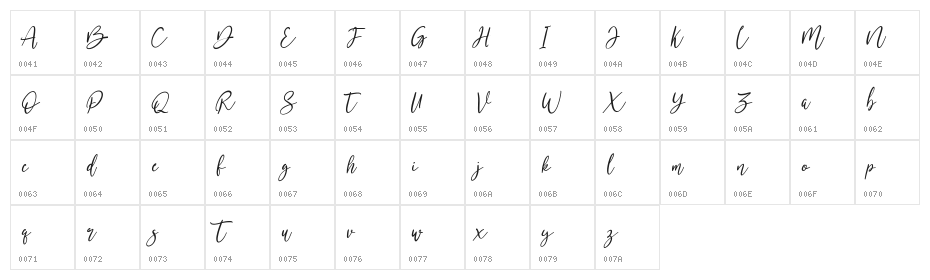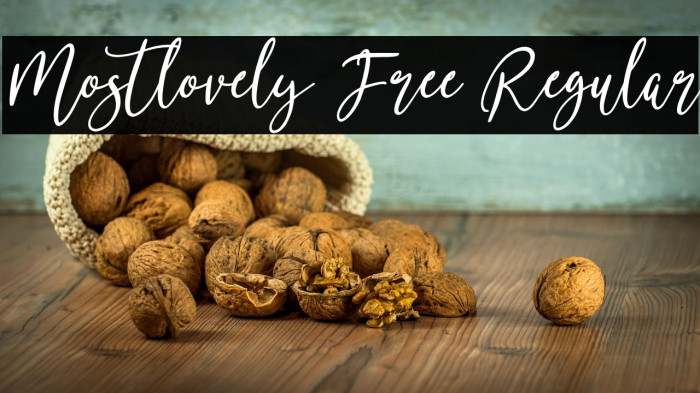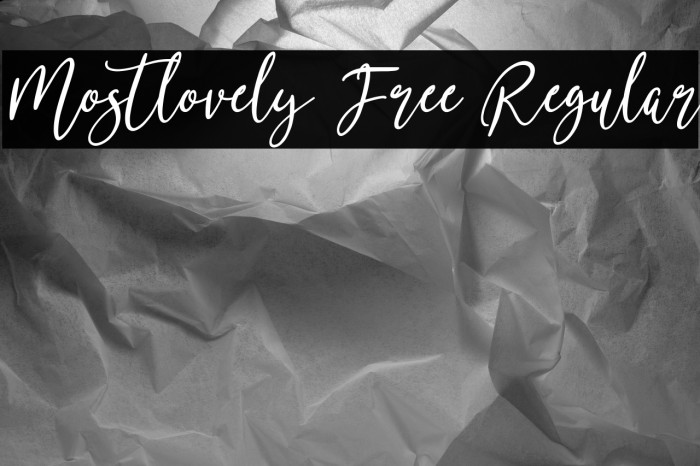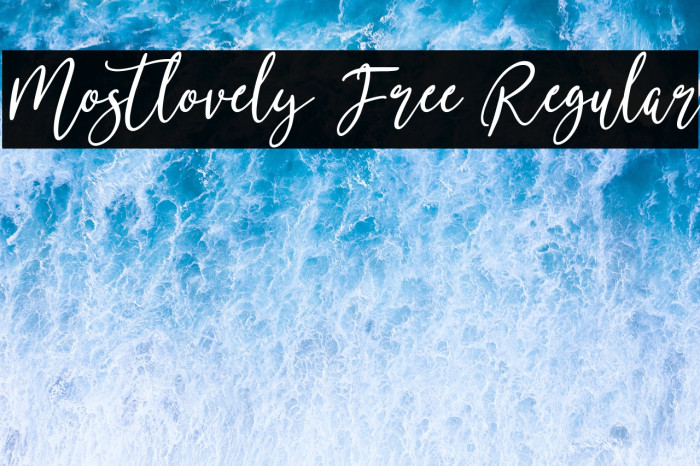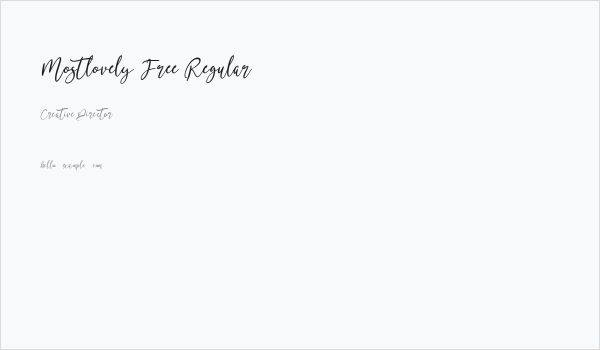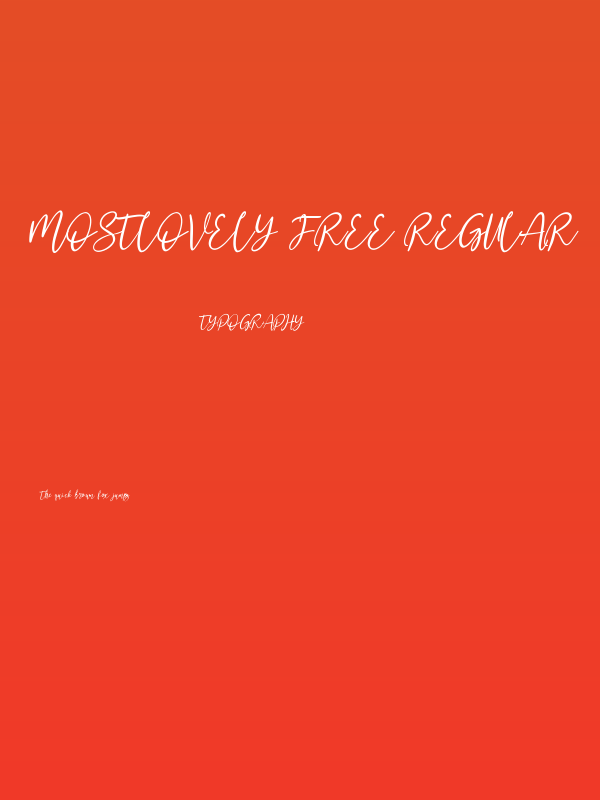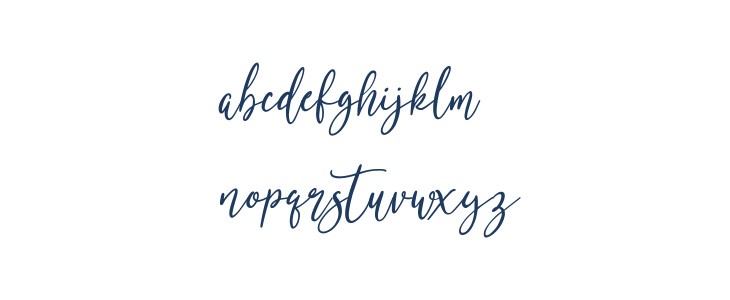
Mostlovely Free Regular Font
Mostlovely Free Regular Description
This font exudes elegance and fluidity, characterized by its cursive, handwritten style. The letters are connected with smooth, flowing strokes, giving it a graceful and sophisticated appearance. The uppercase letters are bold and prominent, while the lowercase letters maintain a delicate balance, offering a harmonious blend. The overall design is reminiscent of classic calligraphy, with a modern twist that makes it suitable for contemporary use. The font's style is both decorative and functional, making it versatile for various design needs.